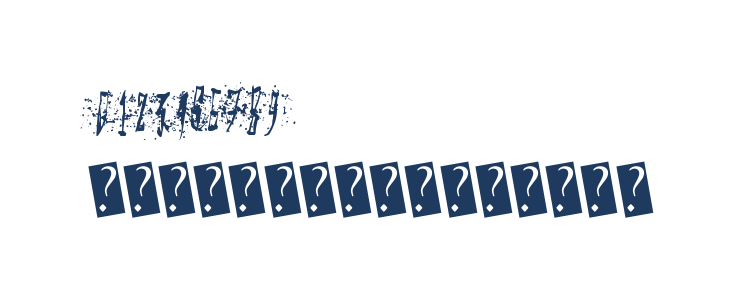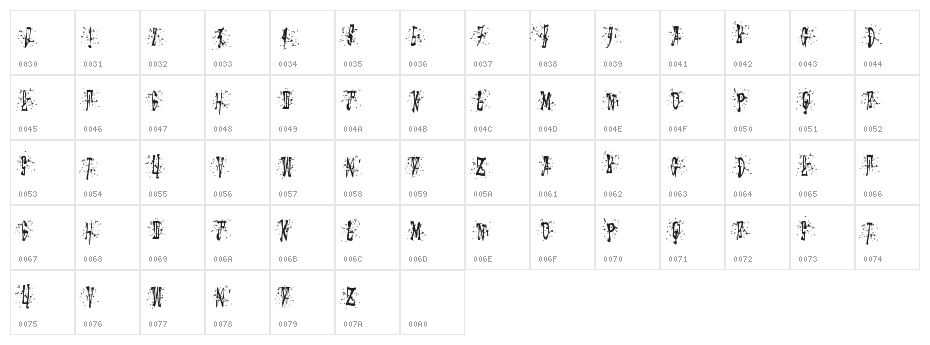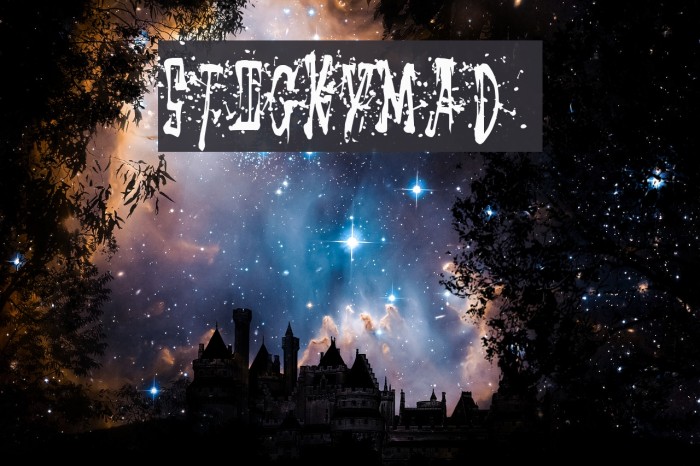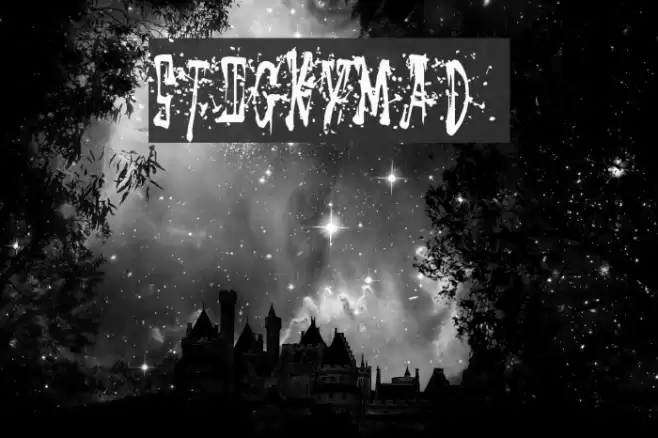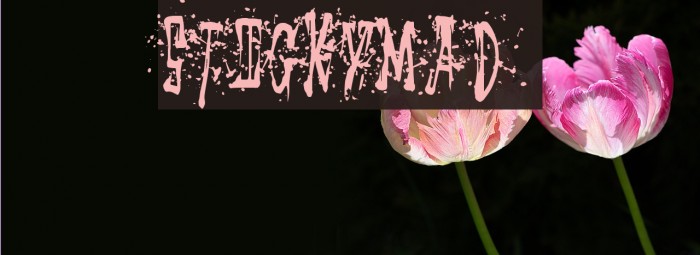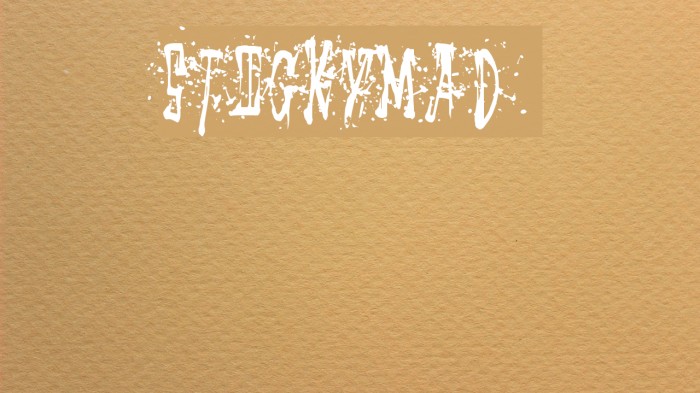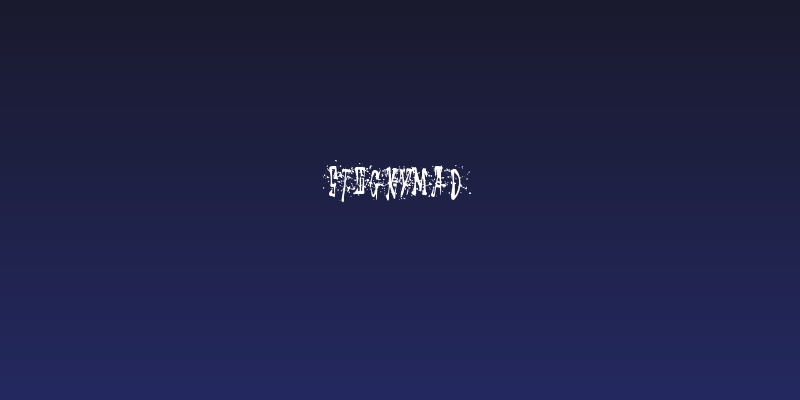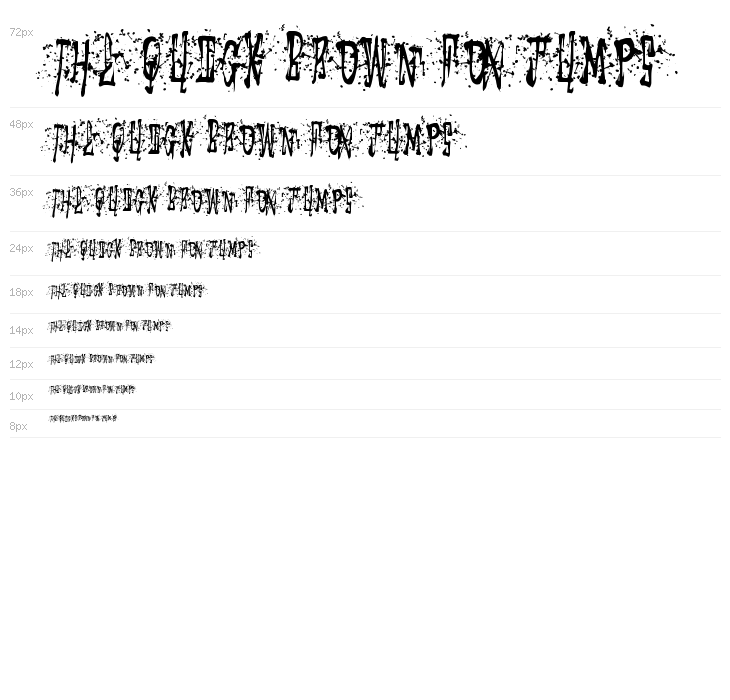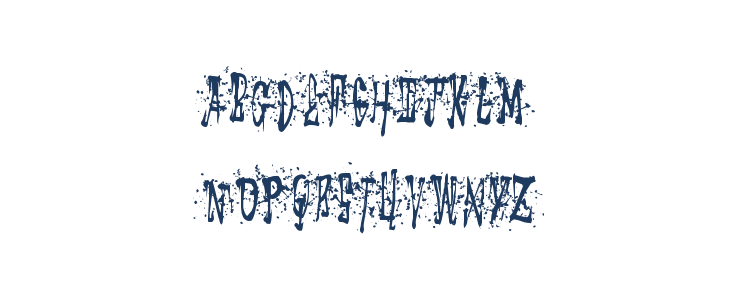
StickyMad Font
StickyMad Description
This font features a chaotic and distressed style, with each character appearing as if splattered with ink or paint. The letters have an uneven, jagged form that gives them a rebellious and edgy appearance. The uppercase and lowercase letters maintain this splattered effect, creating a sense of movement and energy. The numbers and special characters follow the same design, ensuring consistency across the entire set. This font is ideal for projects that require a bold, unconventional look, such as posters, album covers, or any design that aims to capture attention with its raw and dynamic aesthetic.
| Proposed Projects | Ideal for posters, album covers, or any design needing a bold, unconventional look. |